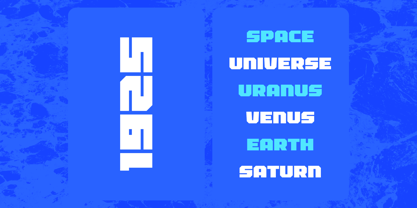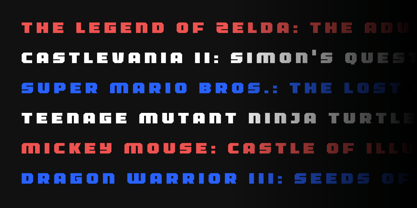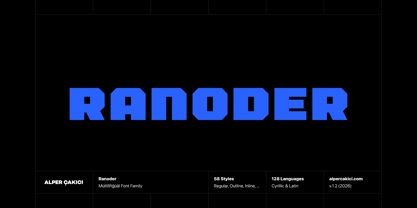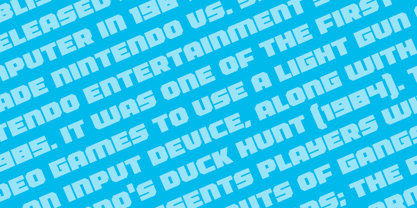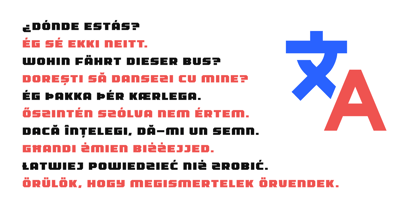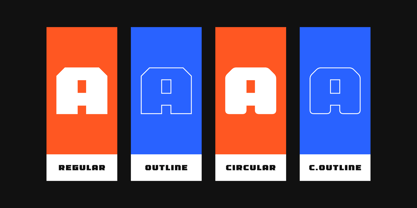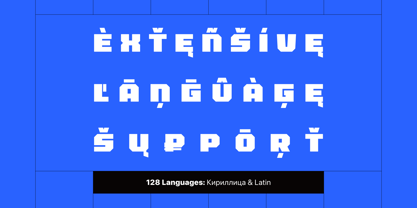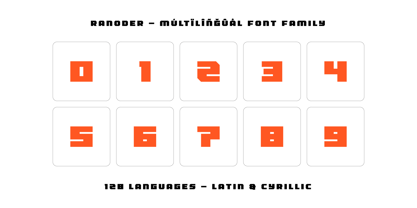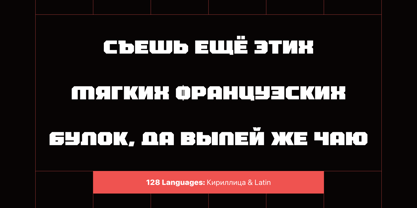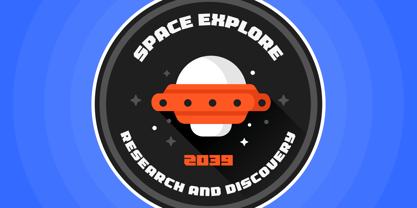
Ranoder
The Ranoder Font Family was designed by Alper Çakıcı and published by AlperCakici. Ranoder contains 58 styles and family package options. More about this family
Ranoder is a bold, high-impact display typeface built for strong visual statements. Designed with power and versatility in mind, Ranoder blends confident geometry with expressive detailing, making it ideal for branding, posters, packaging, headlines, logos, and large-format typography. With an extensive range of styles, Ranoder moves effortlessly between sharp angular constructions and smooth rounded forms. The family includes expressive Brush and Pencil variants, textured Rough and Eroded styles, clean Inline and Outline options, distinctive Rimmed cuts, and experimental Noise treatments. Circular and Rounded subfamilies expand its personality even further, offering softer interpretations without losing strength. Each style is carefully crafted to maintain consistency while delivering its own character — from clean and modern to raw and handcrafted. The italic companions add energy and motion, making Ranoder suitable for dynamic layouts and layered typographic compositions. Ranoder is perfect for: Bold branding systems Eye-catching editorial headlines Street-inspired graphics Music, sports, and event visuals Packaging and merchandise Social media graphics With its large language support and wide stylistic range, Ranoder gives designers the flexibility to create expressive, attention-grabbing typography across multiple cultures and markets. Ranoder is not just a font — it’s a powerful display system.